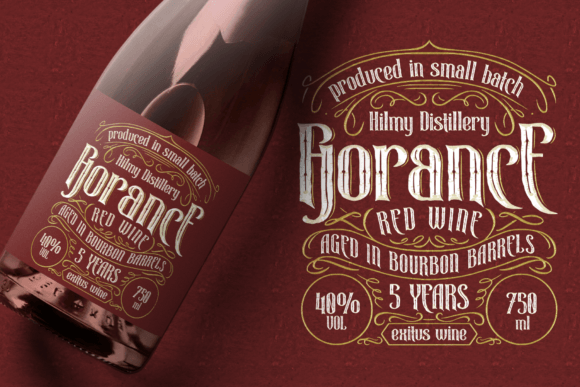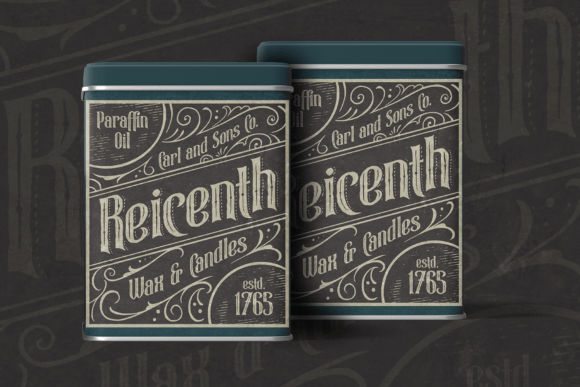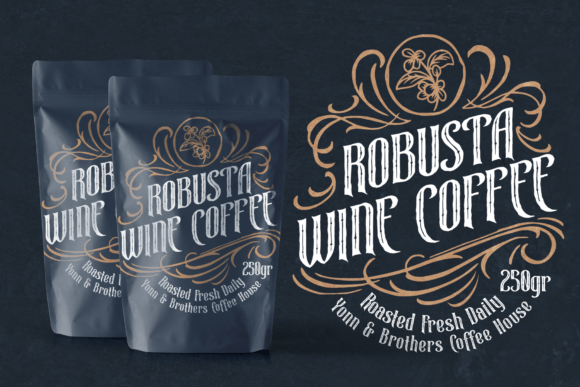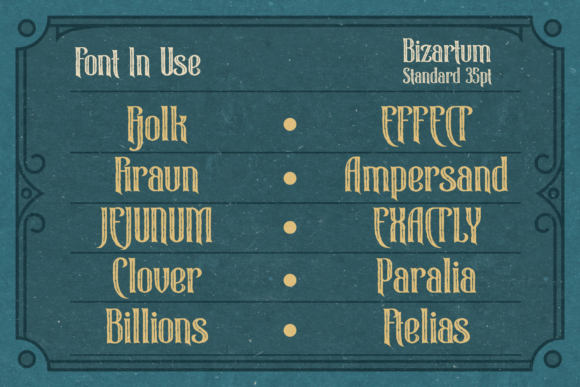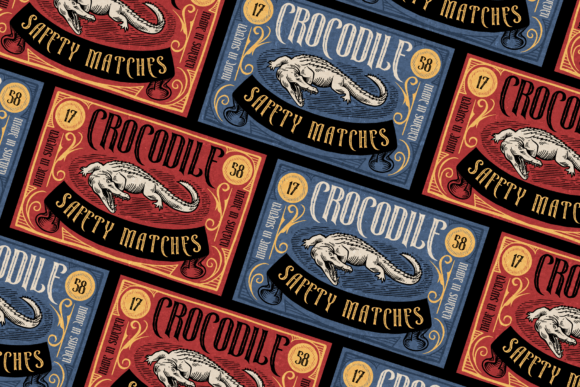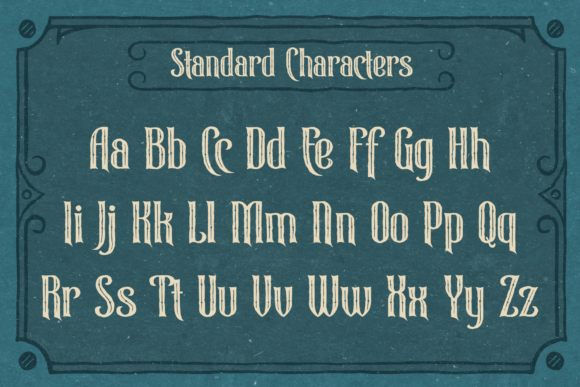
Discovering the Perfect Vintage Charm: Bizartum Font
There’s nothing quite like stumbling upon an old, dusty book or a vintage advertisement in a thrift store. The faded letters, the worn-out pages, and the nostalgic feel of a bygone era transport you to a different time. It’s moments like these that inspire designers to create something truly unique and timeless. For those seeking to evoke a sense of classic elegance, look no further than the Bizartum Font.
This vintage Victorian font boasts an unmistakable charm, characterized by its irregular edges and a distinctive vertical hole in the middle. Whether you’re designing a retro brand or a liquor label, Bizartum Font is the perfect choice to add a touch of sophistication and nostalgia. Its versatility makes it an invaluable asset for designers, allowing them to create a wide range of branding designs that exude classic style and character.
- Unique Characteristics: Bizartum Font features a unique, hand-drawn design with intricate details and ornaments, making it perfect for creating visually striking and artistic typography.
Bizartum Font Review
Overall, I think Bizartum Font has some unique qualities that make it stand out from other fonts. ✨ I love the quirky and whimsical feel it gives to any text, perfect for creative projects or branding that wants to express a playful vibe. The font also has a wide range of weights and styles, making it highly versatile and adaptable to different design needs.
- ✨ Unique and quirky design that adds a creative touch to any project
- ✨ Wide range of weights and styles to suit different design needs
- ✨ Highly customizable and adaptable to various design themes
However, I do have some reservations about the font’s legibility and clarity, especially at smaller font sizes. ⚠️ The font’s irregular shapes and unique characters can make it difficult to read in certain contexts, and it may not be the best choice for body text or content-heavy designs. Additionally, some of the characters may require manual adjustment to ensure proper spacing and alignment.
- ⚠️ May not be the best choice for body text or content-heavy designs due to legibility issues
- ⚠️ Some characters may require manual adjustment for proper spacing and alignment
Overall, I think Bizartum Font is a great choice for designers looking for a unique and creative font to add a touch of personality to their projects. While it may have some limitations, its versatility and adaptability make it a valuable asset in any design arsenal.
Tips for Getting the Most Out of Bizartum Font
Use Bizartum Font for headings and titles to add a touch of elegance and sophistication to your designs.
Pair Bizartum Font with a clean and simple font for body text to create a visually appealing contrast.
Experiment with different font sizes and styles to create a unique and eye-catching design.
Bizartum Font is ideal for:
Branding and marketing materials
Editorial and publishing designs